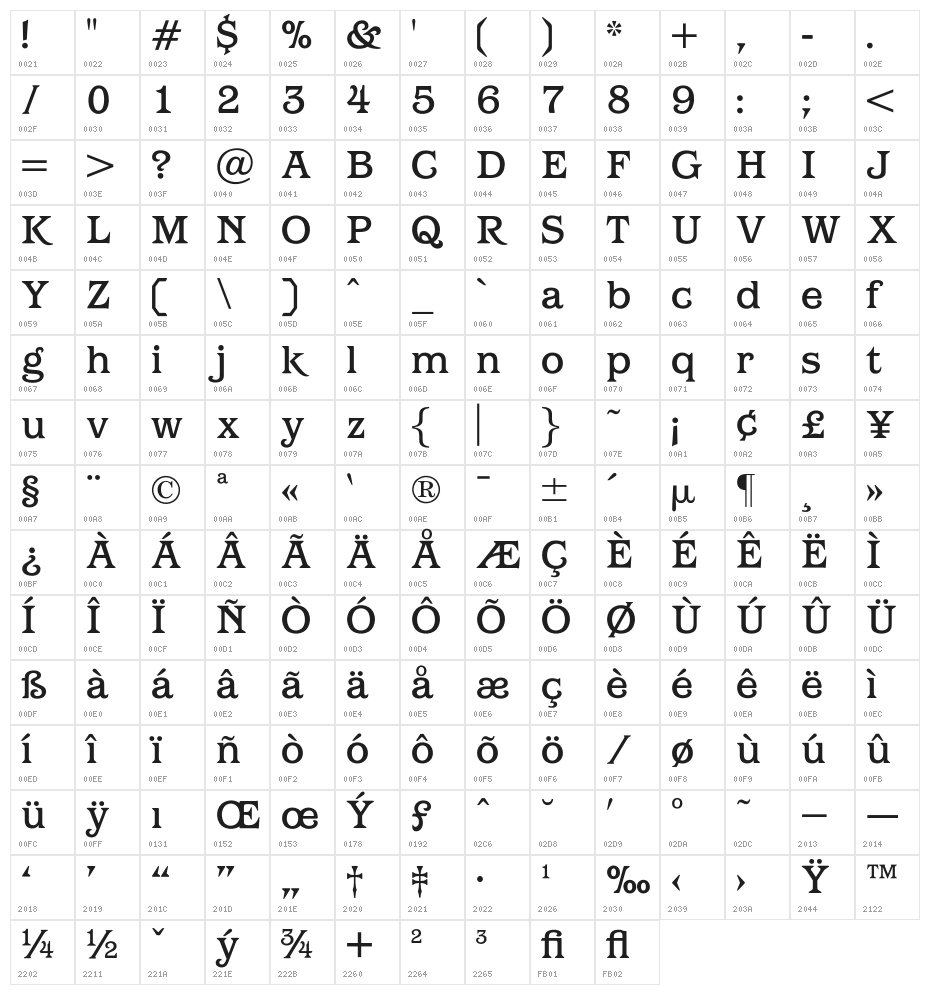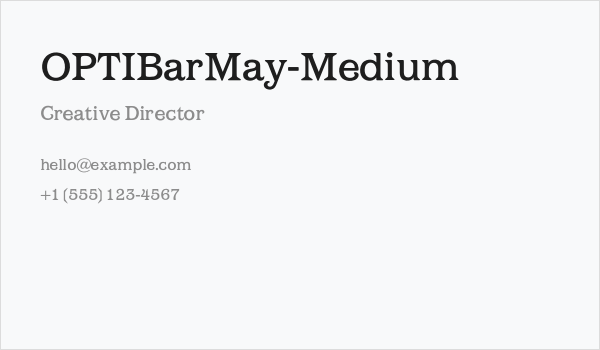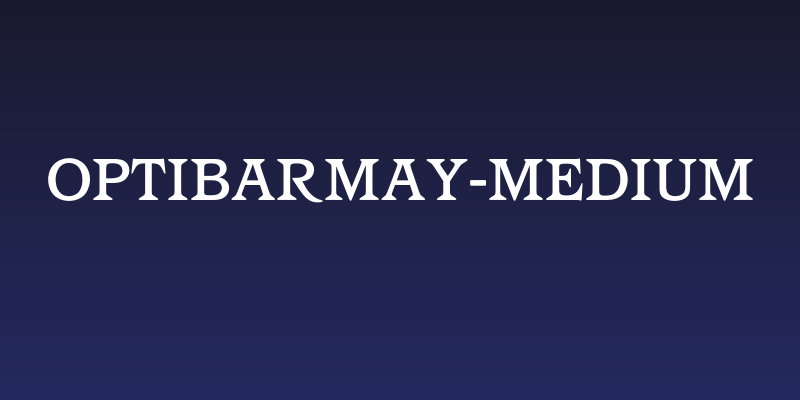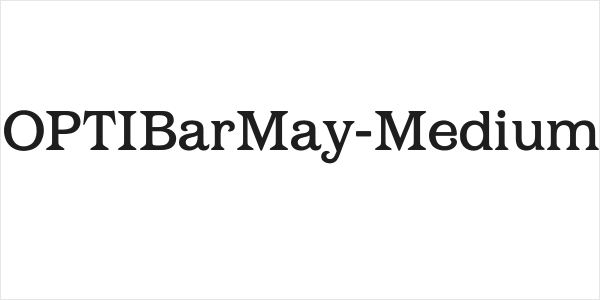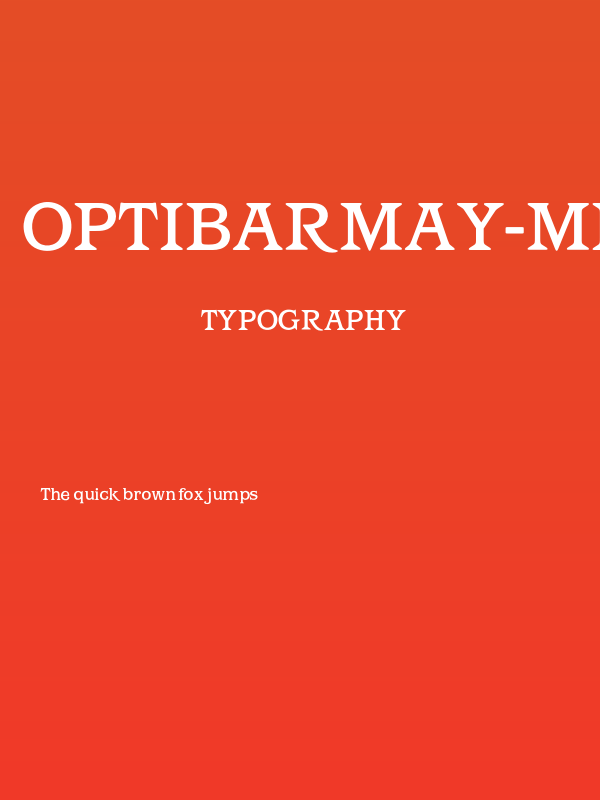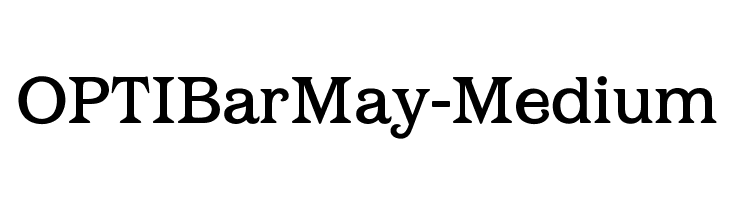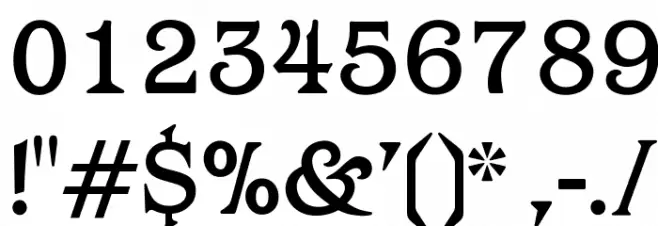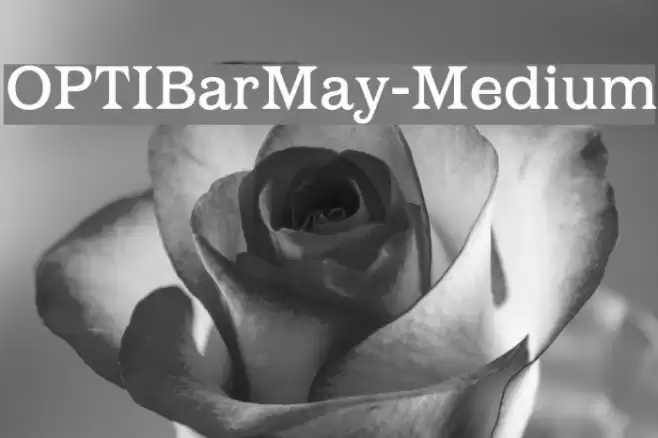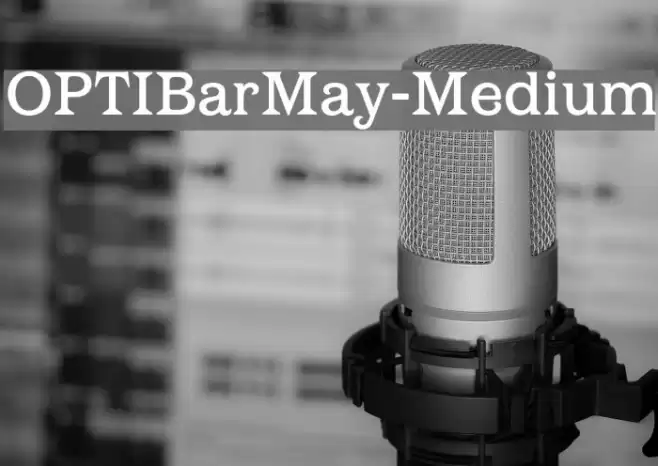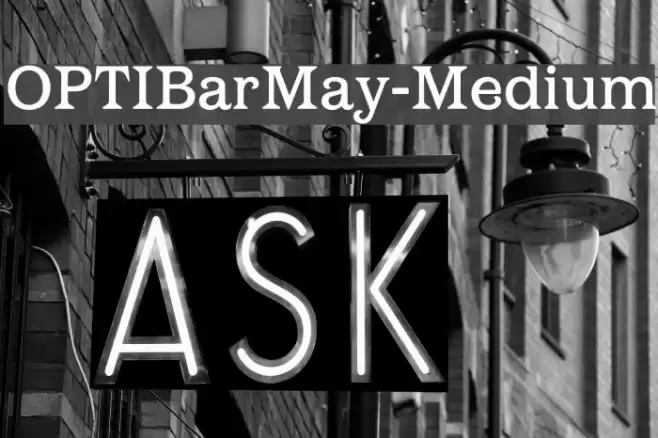
OPTIBarMay-Medium Font
OPTIBarMay-Medium Description
This font features a classic serif design with a medium weight, offering a balanced and readable appearance. The serifs are pronounced, providing a traditional and formal look. The uppercase letters are bold and commanding, while the lowercase letters maintain a consistent and harmonious style. The numerals are clear and distinct, making them suitable for both text and numerical data. Special characters are well-defined, ensuring versatility in various types of content. The overall design is elegant, making it suitable for professional and formal applications.
| Overall Style | Classic |
| Use Case | Body text, Headlines, Formal documents |
| Proposed Projects | Ideal for book publishing, formal invitations, academic papers, and corporate branding. |